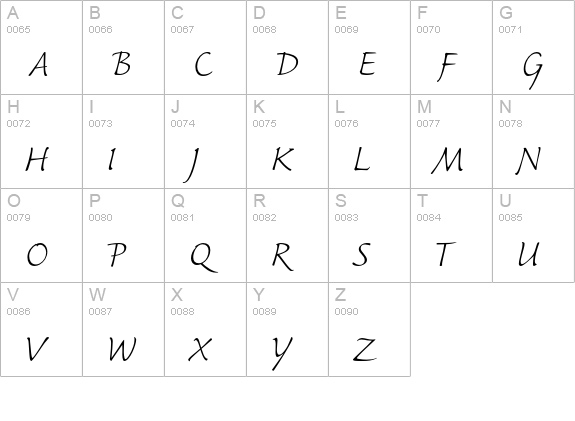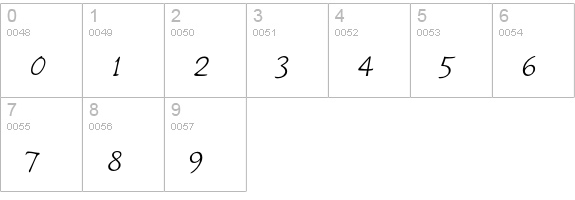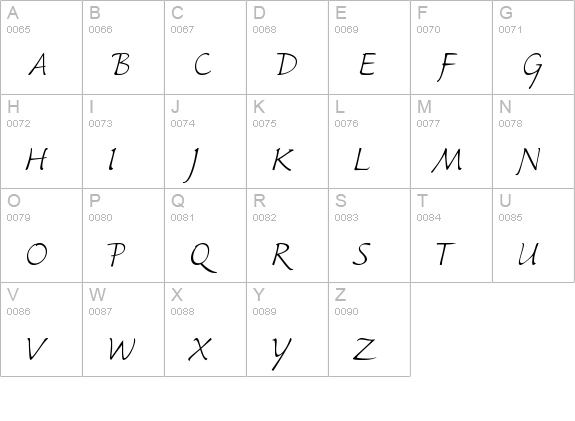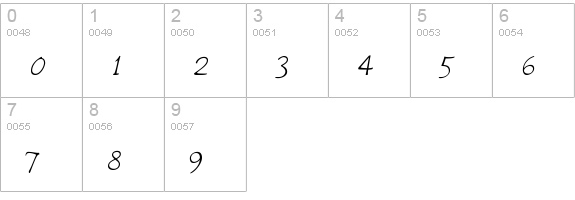
Synthetica Std Font Details
Synthetica Std is a modern and stylish font that exudes sophistication and elegance. With its clean lines and contemporary aesthetic, this font is perfect for a wide range of design projects, from branding to editorial design. The versatility of Synthetica Std makes it an ideal choice for both print and digital applications, ensuring that your message will always be conveyed with clarity and style. What sets Synthetica Std apart is not only its sleek design, but also the fact that it is available for free download at FontsMarket.com. This means that you can easily access this high-quality font without breaking the bank, allowing you to elevate your designs without any additional cost. Whether you're working on a professional project or a personal endeavor, Synthetica Std is a valuable asset that will help you achieve your design goals with ease.